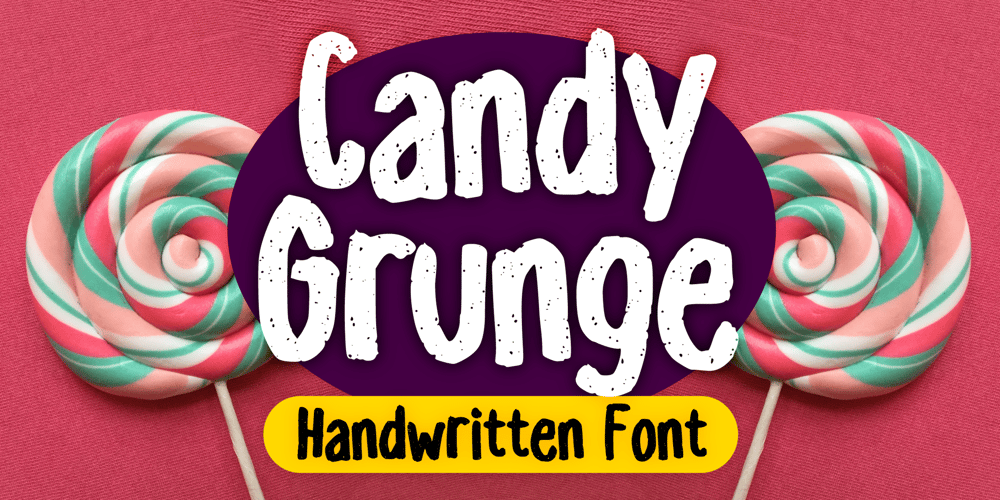
Candy Grunge Font Family was designed by Gabriel Valentinus and published by Mvmet. Candy Grunge contains 1 styles and family package options. Candy Grunge is a fun and comical sans serif font. You can use it for anything ranging from t-shirts, kids’ book designs, and greeting cards to stickers and posters, or anything that needs a casual touch. Fall in love with its incredibly versatile style and use it to create lovely designs!